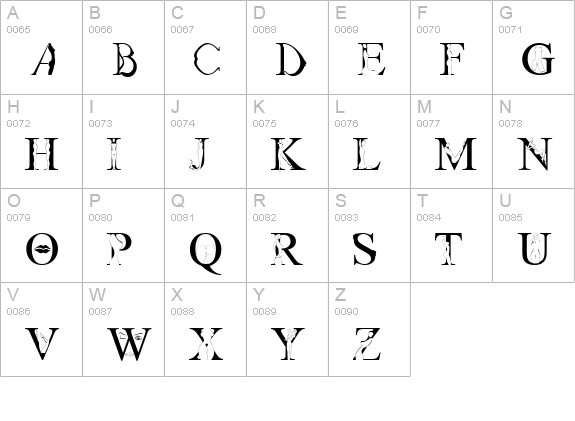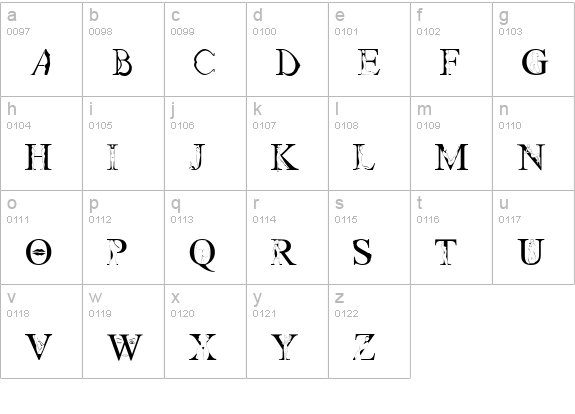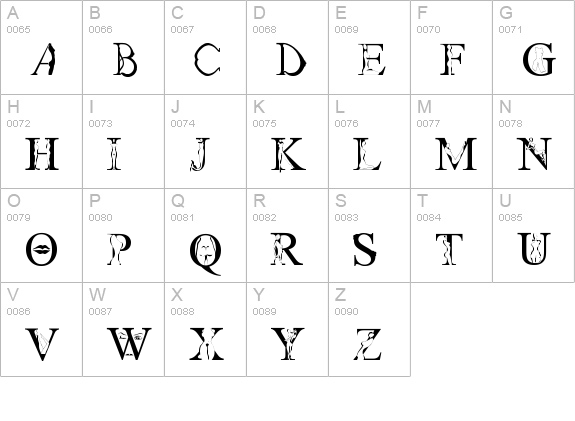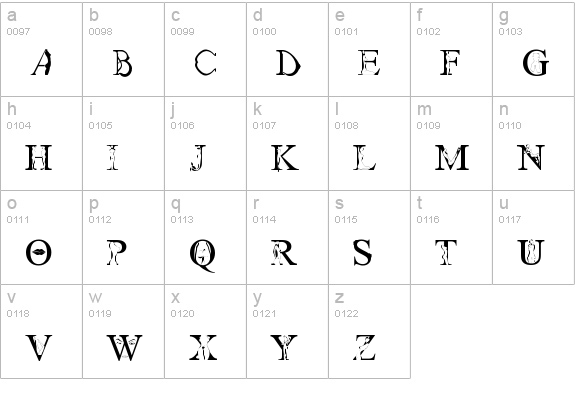
StripLetter1 Font Details
Introducing StripLetter1 font, a modern and stylish typeface that exudes elegance and sophistication. This unique font features clean lines and a sleek design, making it perfect for a wide range of design projects. Whether you're working on a logo, branding materials, invitations, or any other creative endeavor, StripLetter1 font is sure to make a lasting impression. What sets StripLetter1 font apart is its versatility and timeless appeal. With its eye-catching aesthetic and attention to detail, this font is perfect for adding a touch of class to any project. Whether you're going for a minimalist look or a more elaborate design, StripLetter1 font will help you achieve the perfect balance of style and sophistication. Best of all, StripLetter1 font is available for free download at FontsMarket.com. This means you can easily access this stunning font and start using it in your projects right away. Don't miss out on this opportunity to elevate your designs with the elegant and stylish StripLetter1 font. Download it today and see the difference it can make in your creative work.